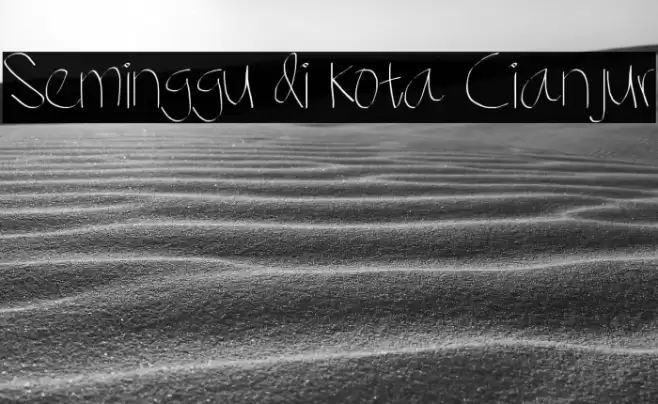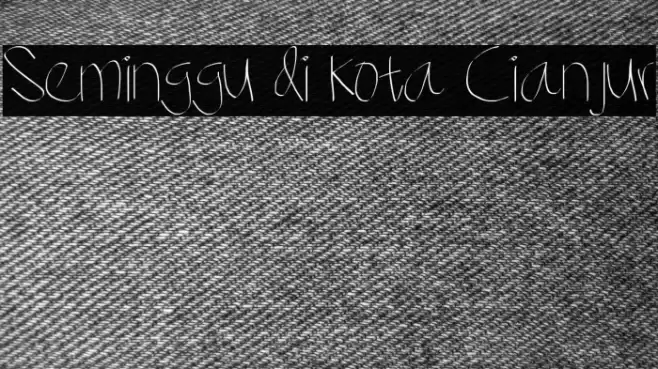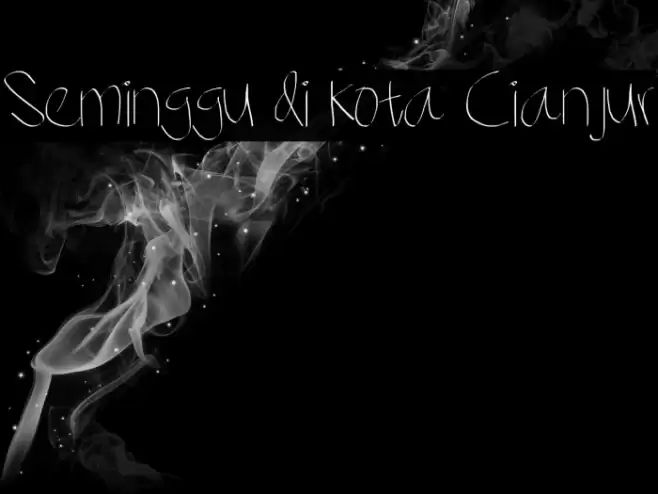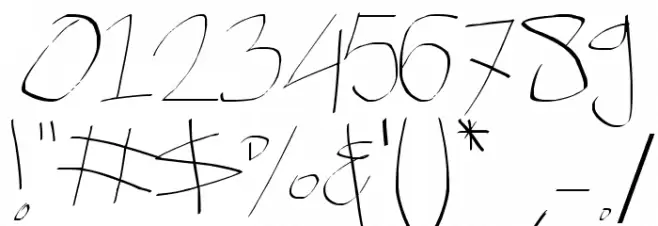
Seminggu di kota Cianjur Font
Seminggu di kota Cianjur Description
This font features a playful and casual handwritten style, characterized by its loose and flowing strokes. The letters are slightly irregular, giving it a natural and organic feel. Uppercase and lowercase letters maintain a consistent style, with a slight slant that adds to its informal appearance. The numerals and special characters follow the same whimsical design, making the font versatile for creative projects. Its overall appearance is friendly and approachable, suitable for designs that require a personal touch.
A playful, casual handwritten font with loose, flowing strokes from Uncategorized fonts.
- Proposed Projects: Ideal for greeting cards, invitations, personal branding, and creative projects that require a personal, informal touch.
- Overall Style: Casual, Playful
- Use Case: Headlines, Logos, Informal Text